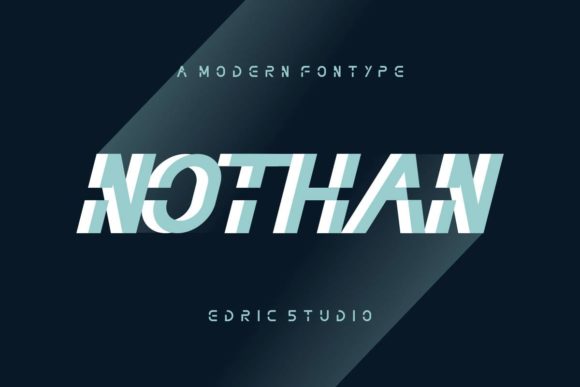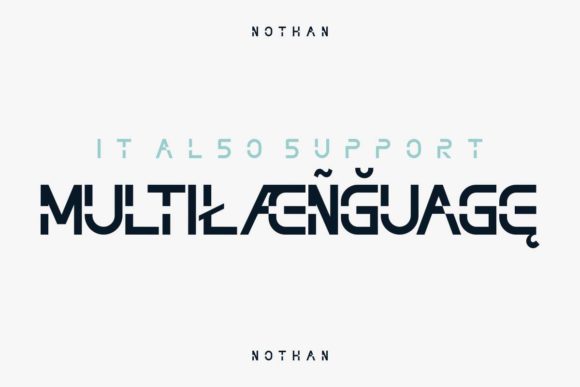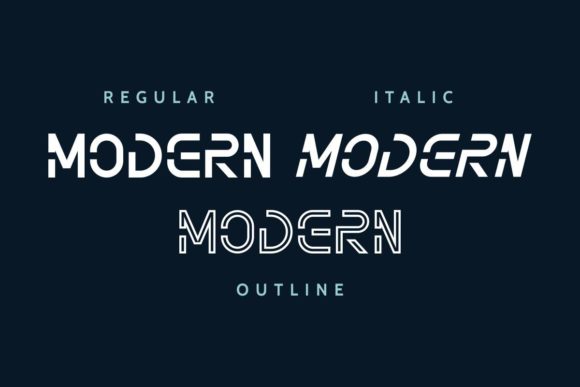
Introduction to Nothan Font
Imagine you’re working on a creative project and you’re stuck on finding the perfect font to bring your design to life. You scroll through endless options, but nothing seems to capture the essence of your vision. That’s when you stumble upon the Nothan Font, a game-changing sans serif font that has been making waves in the design community.
Nothan Font is more than just a font – it’s a design resource that can elevate your creative project to new heights. With its high-quality design and versatility, it’s no wonder why designers are raving about this font. Whether you’re working on a digital project with a transparent background or a print material that requires a bold statement, Nothan Font is the perfect companion to help you achieve your design goals.
Key Features of Nothan Font
• High-quality font with a transparent background, ideal for creative projects and design resources.
• Unique characteristics include a modern and sleek aesthetic, making it perfect for use in digital design, graphic design, and typography.
Honest Review: Nothan Font
What works well: ✨ The font’s transparent background allows for seamless layering and blending with other design elements. The clean lines and minimalistic design make it an excellent choice for modern branding and UI/UX projects.
• High-quality vector graphics
• Transparent background for easy layering
• Perfect for creative projects, branding, and UI/UX design
However, there are a few limitations: ⚠️ The font may not be suitable for projects that require a bold, dramatic font. Additionally, the free version may not include as many font styles or weights as the paid version.
Overall, I’m impressed with Nothan Font. It’s a great design resource that’s perfect for designers looking for a modern, high-quality font. While it may not be suitable for every project, it’s an excellent choice for creative projects that require a clean, minimalistic design.
Tips for Getting the Most Out of Nothan Font
Use Nothan Font in creative projects that require a unique and elegant look. Experiment with different font sizes, colors, and styles to find the perfect combination for your design. Additionally, use the font in combination with other design resources to create a high quality and visually appealing design.
Nothan Font is commonly used in wedding invitations, business cards, and other design projects that require a sophisticated and elegant look. It is also used in creative projects such as logo design, branding, and marketing materials.